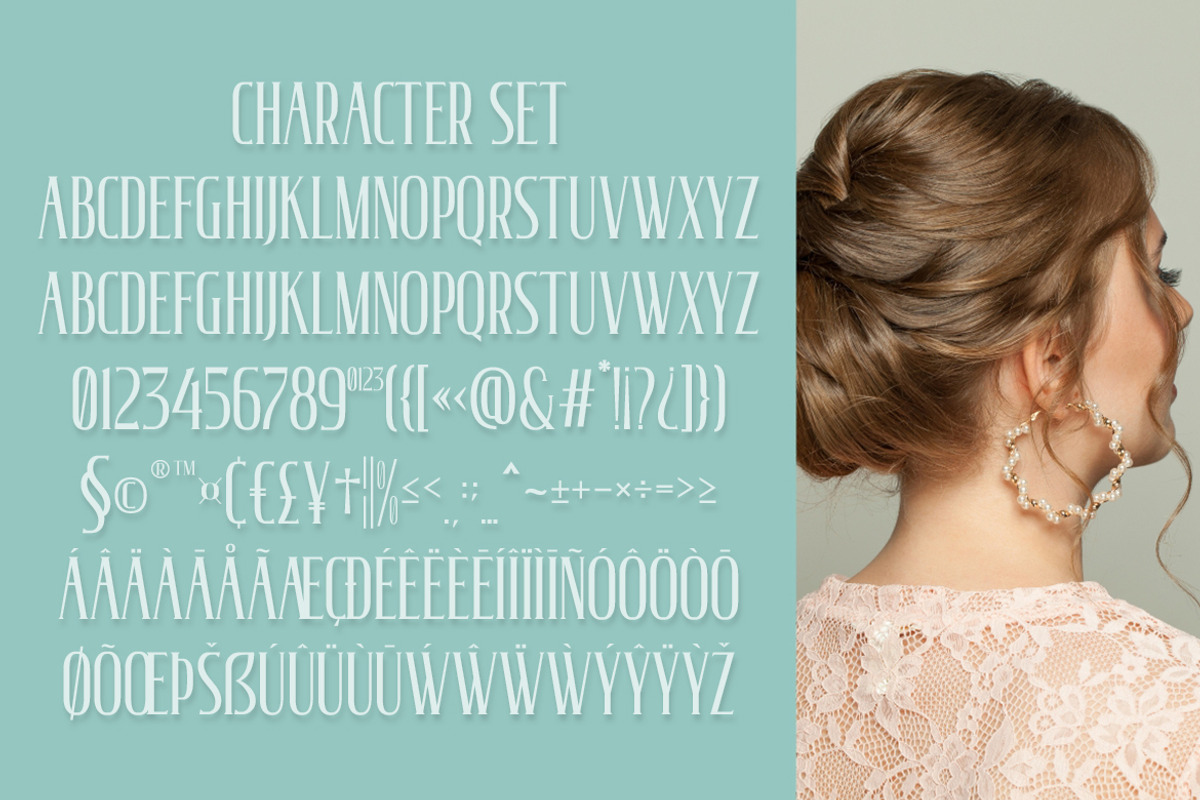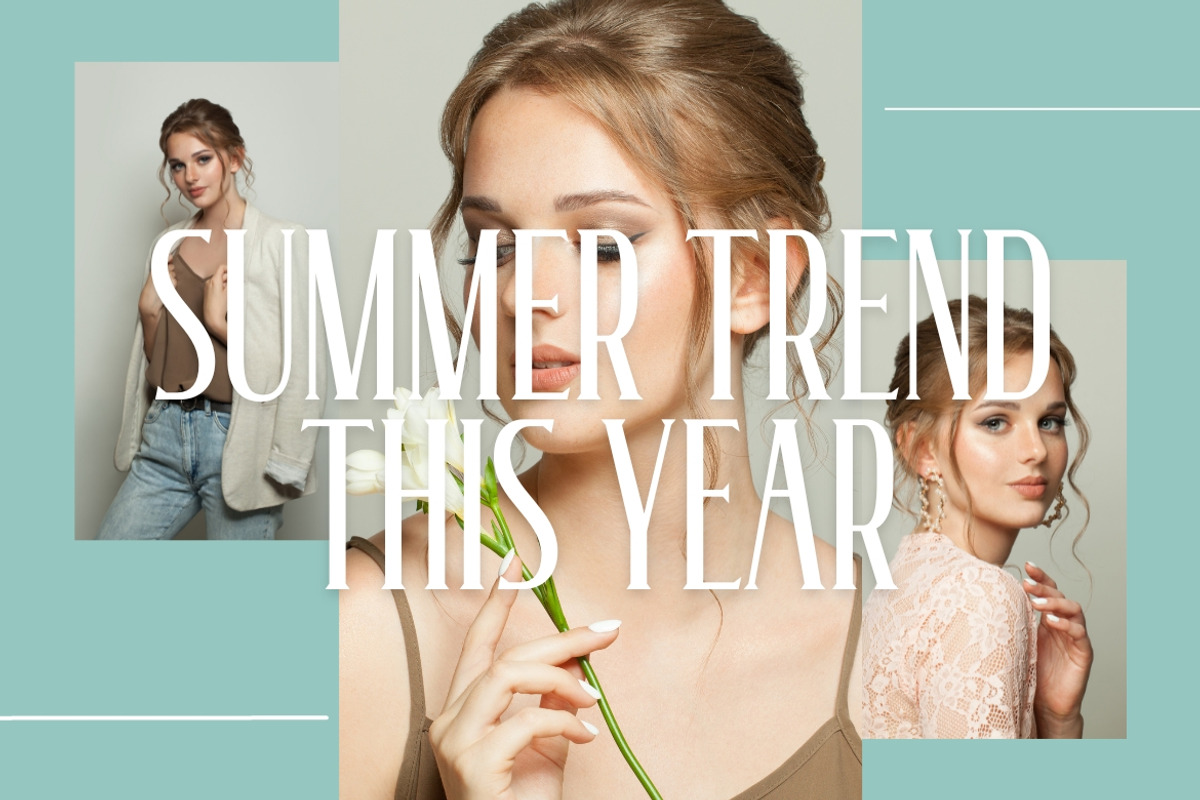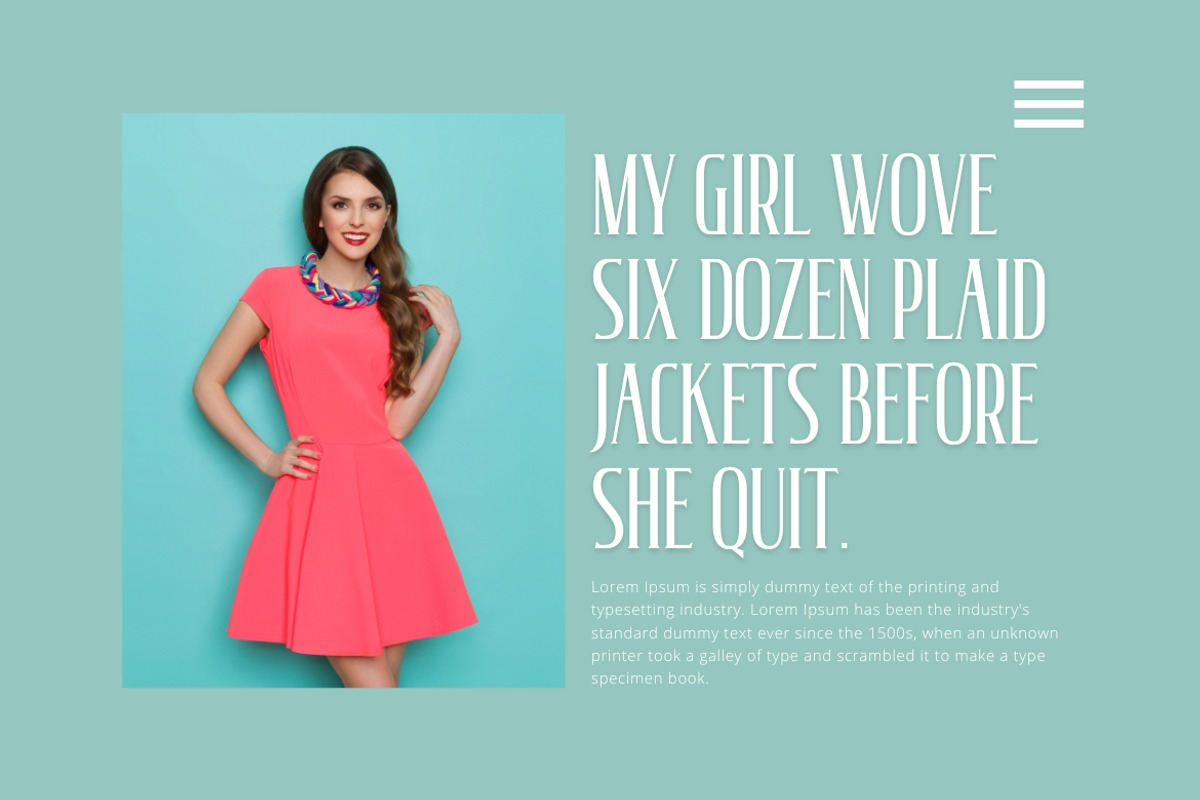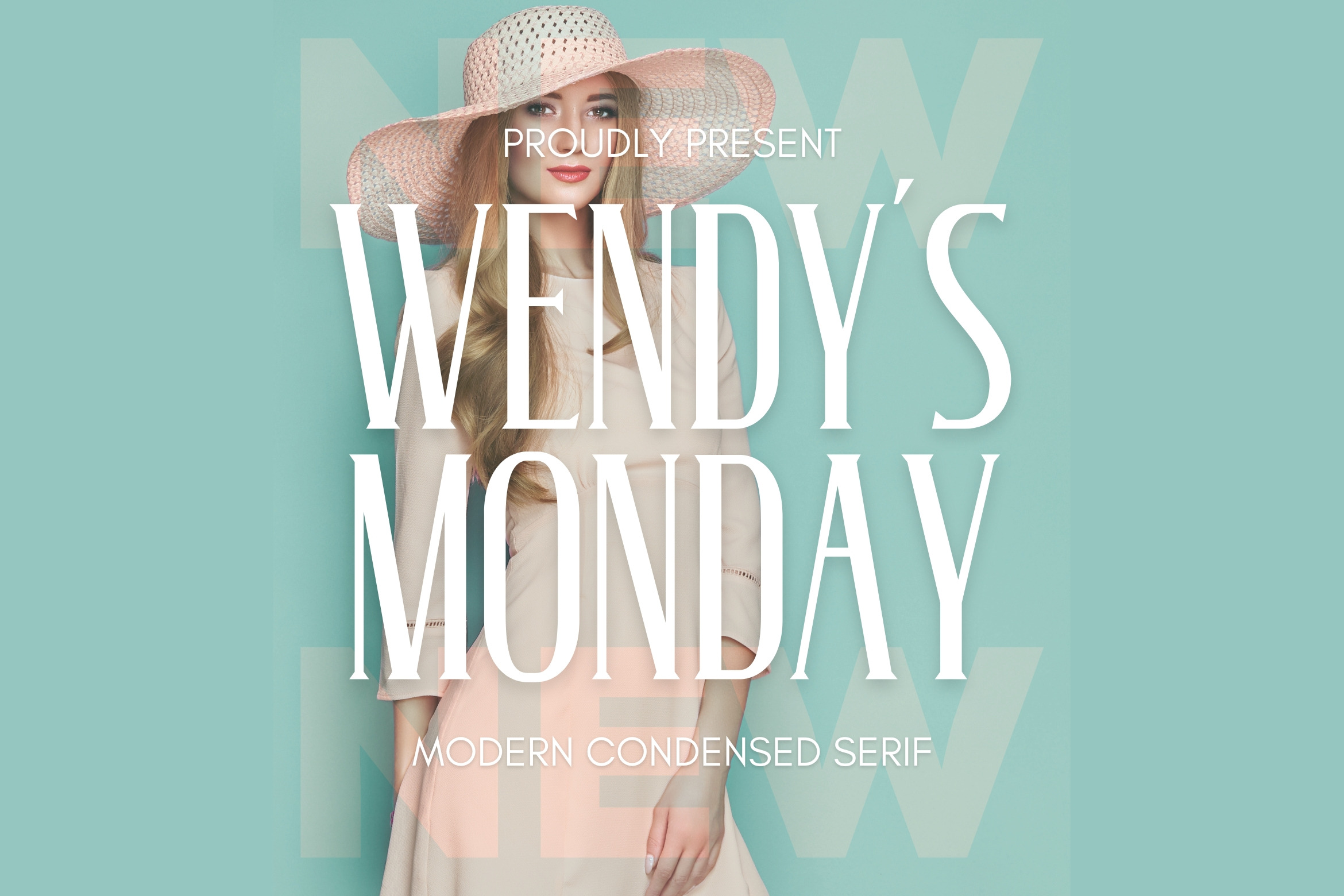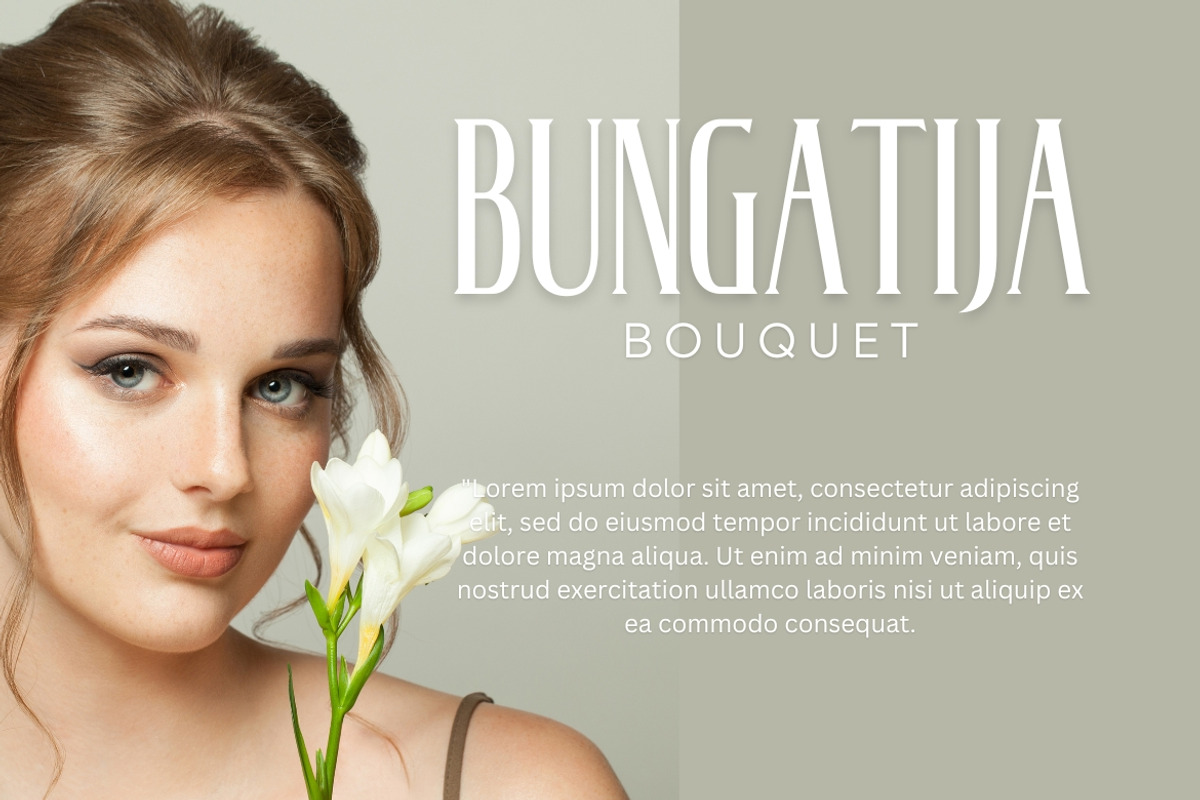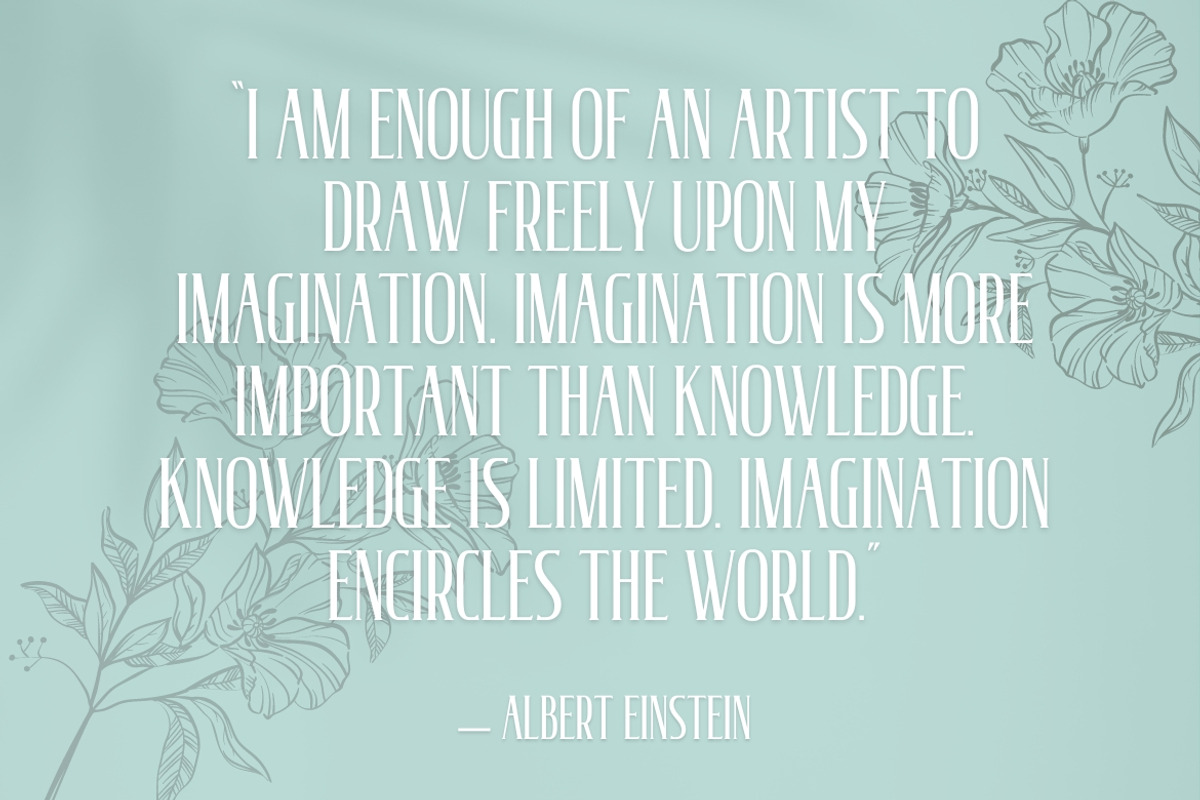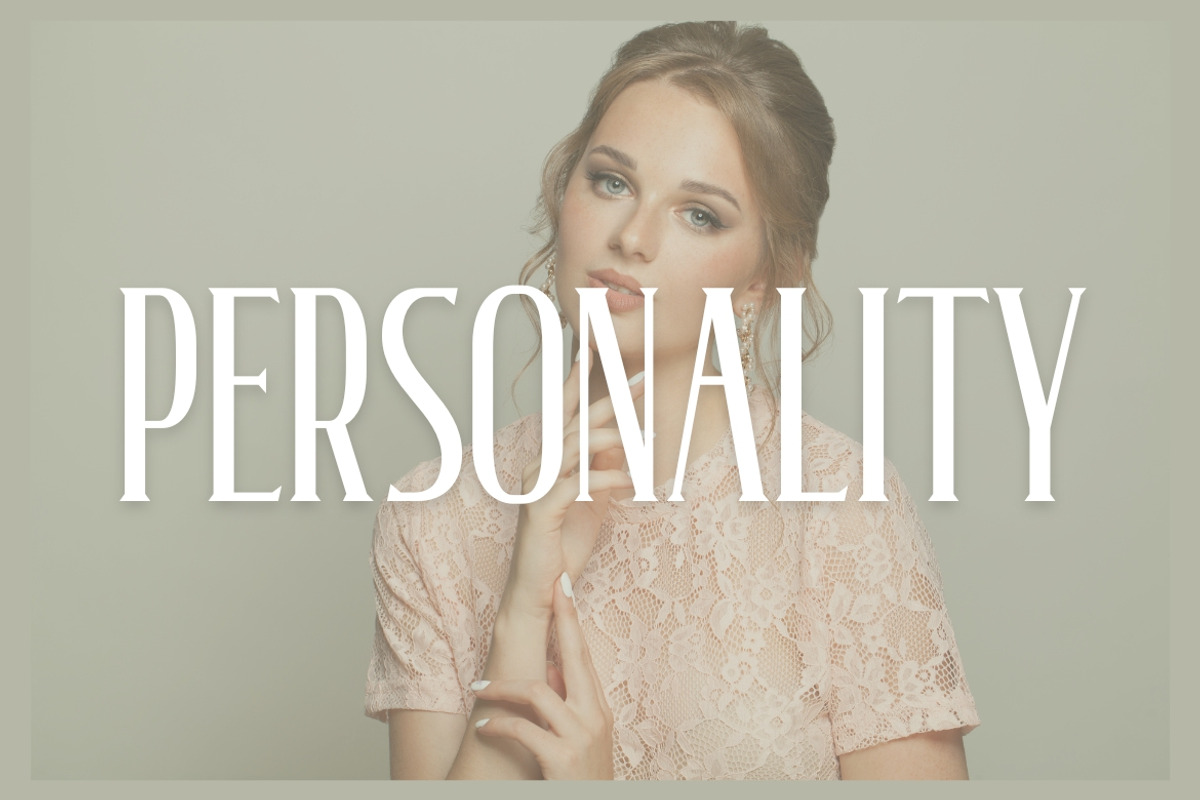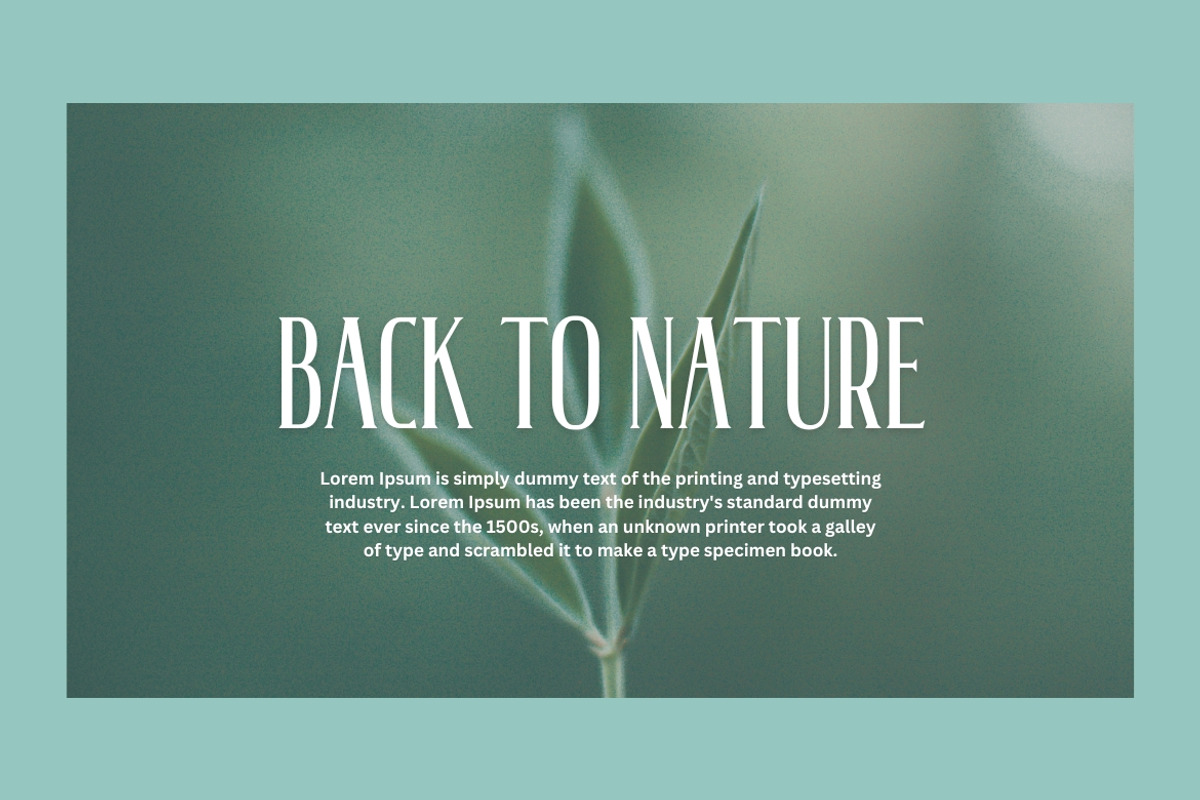
Wendy's Monday - Modern Serif Font
Introducing Wendy's Monday - Modern Display Serif. Wendy's Monday is a modern and simple font, best used as a display for headings, logos, branding, magazines, product packaging and invitations.